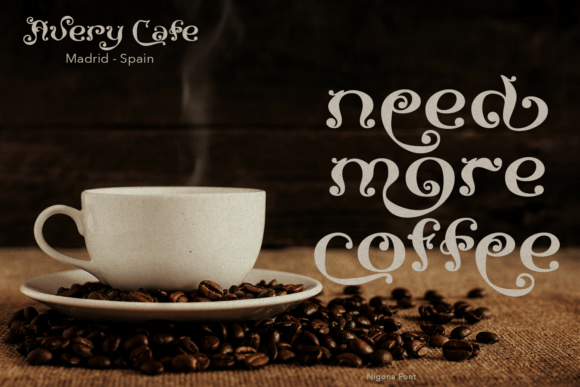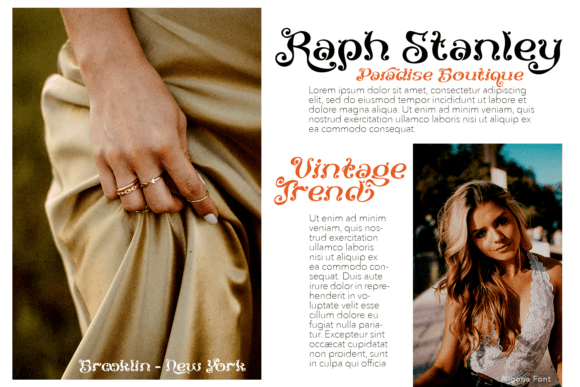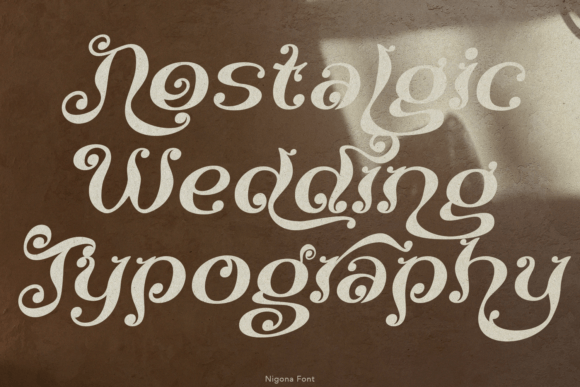
Introduction to Nigona Font
Have you ever stumbled upon an old vinyl record or a vintage magazine and been instantly captivated by the retro aesthetic? For many designers, this nostalgic feeling is the spark that ignites a creative project. It’s the perfect moment to revisit the classics and infuse them into our modern designs. One such gem is the Nigona Font, a typography-inspired design that embodies the spirit of the 1970s.
As a valuable design resource, the Nigona Font offers a unique opportunity for designers to add a touch of vintage charm to their work. With its perfect blend of classic and modern elements, this font is ideal for display purposes, making it a must-have for any designer looking to create high-quality designs with a transparent background. Whether you’re working on a book cover, product label, or logo, the Nigona Font is sure to elevate your creative project to the next level.
Key Features of Nigona Font
- High-quality, elegant design perfect for creative projects and artistic expressions
- Includes a wide range of characters, including uppercase and lowercase letters, numbers, and punctuation marks
- Designed with a high resolution, making it suitable for use in large-scale designs and print materials
- Perfect for use in various design projects, from typography-focused designs to more complex, multi-element compositions
Honest Review: Nigona Font
I recently had the chance to work with the Nigona Font in a creative project and I must say, I was pleasantly surprised. This design resource has a lot to offer.
- ✨ High quality characters with a unique, handwritten feel.
- ✨ Supports a wide range of languages, making it a great option for international design projects.
- ✨ Comes with a transparent background, which is perfect for designing on top of images or other backgrounds.
- ⚠️ The font doesn’t come with a bold weight, which might be a issue for some designers who prefer a bolder look.
- ⚠️ The font family is a bit limited, with only a few styles to choose from.
Overall, I’m impressed with the Nigona Font. It’s a great addition to any designer’s toolkit, especially for those working on creative projects that require a high-quality, handwritten font. The fact that it’s a free download is just the icing on the cake.
Tips for Getting the Most Out of Nigona Font
Use the Nigona Font as a design resource for your high-quality projects. Experiment with different font sizes, colors, and styles to create a unique look. You can also combine the Nigona Font with other design elements, such as images and graphics, to create a visually appealing design.
The Nigona Font is ideal for creative projects that require a high-quality, free download font. It’s perfect for use in logos, branding materials, and other design projects where a unique and stylish font is needed.